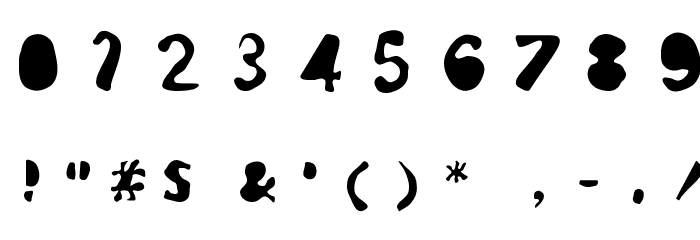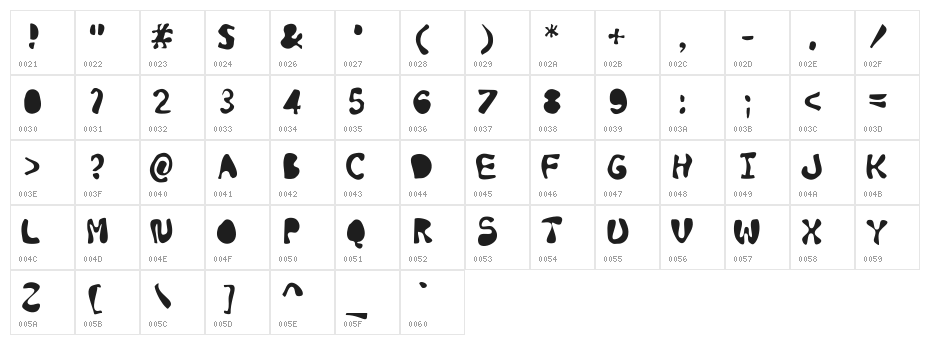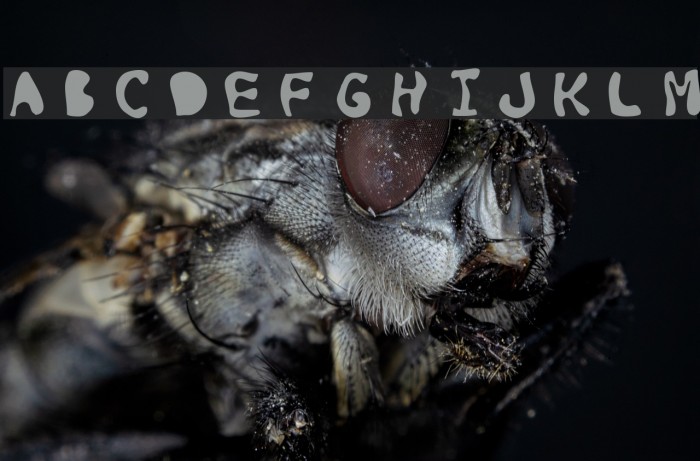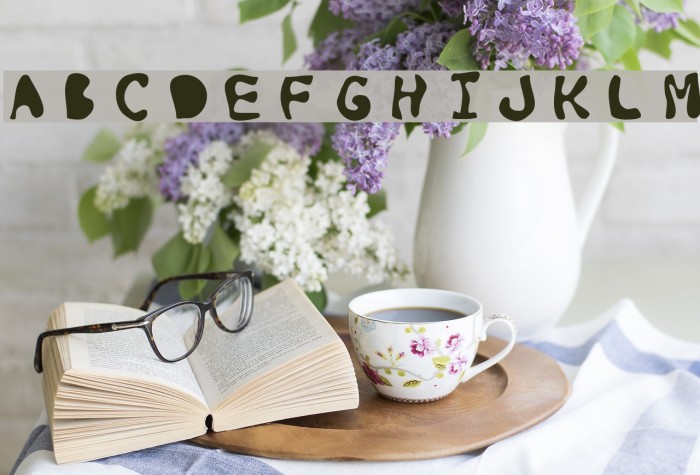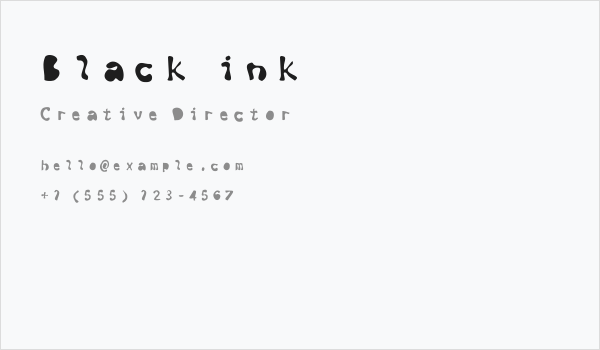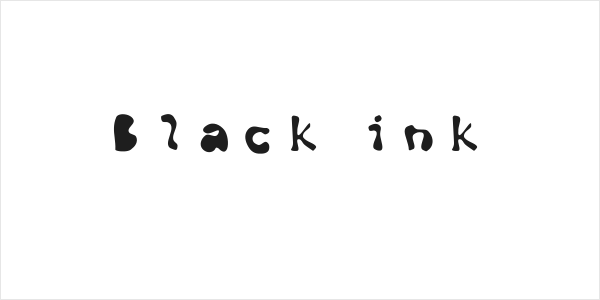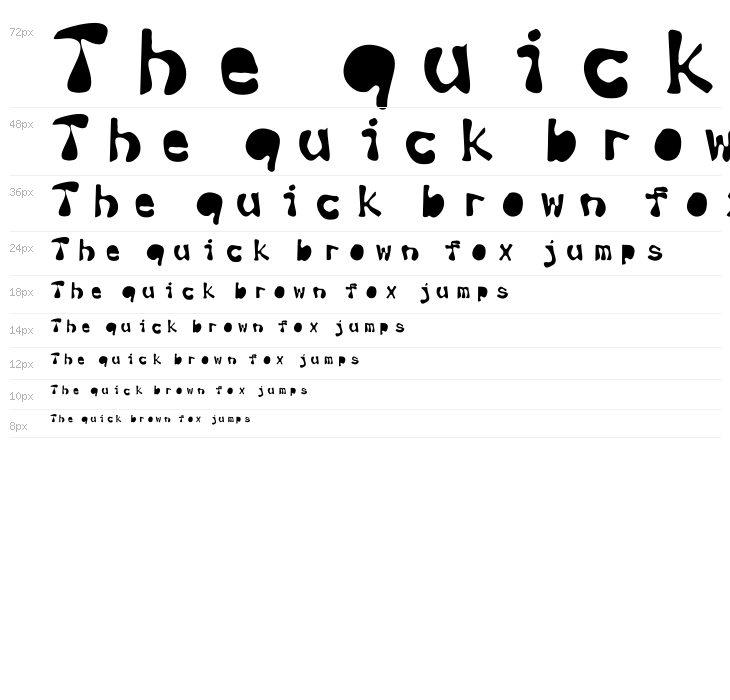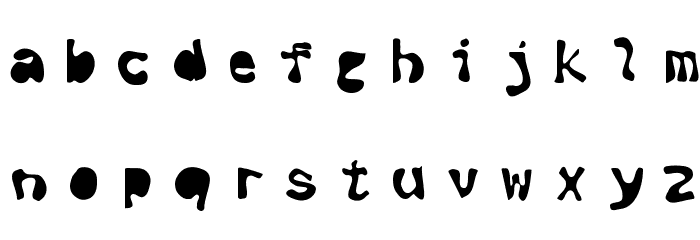
Black ink Font
Black ink Description
This font features a playful and bold design with irregular, organic shapes that give it a hand-drawn appearance. The characters are thick and rounded, with varying stroke widths that add a dynamic and whimsical feel. The uppercase and lowercase letters maintain a consistent style, while the numbers and special characters complement the overall aesthetic. The font's unique and artistic style makes it stand out, perfect for creative projects that require a fun and informal touch.
| Proposed Projects | Ideal for children's books, playful branding, posters, and creative invitations. |